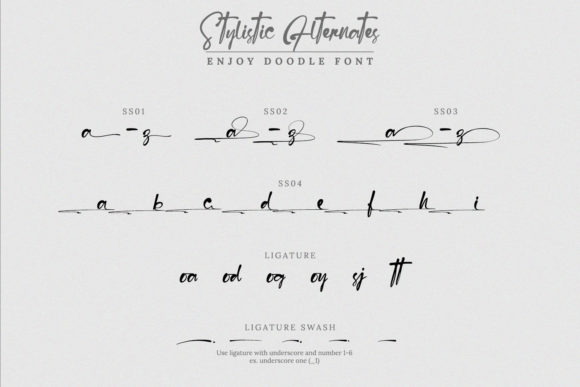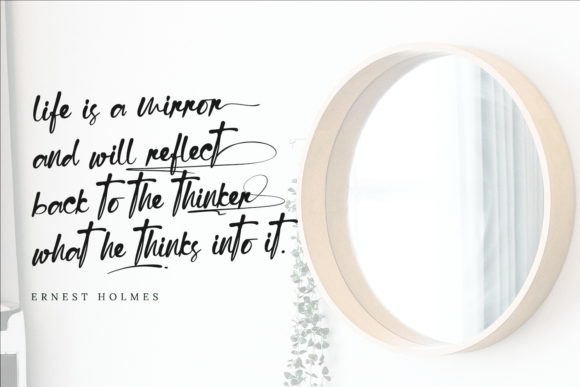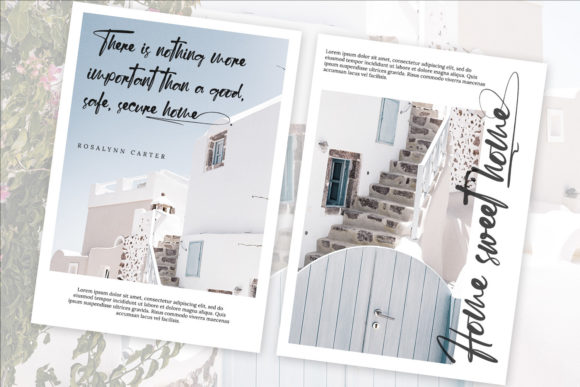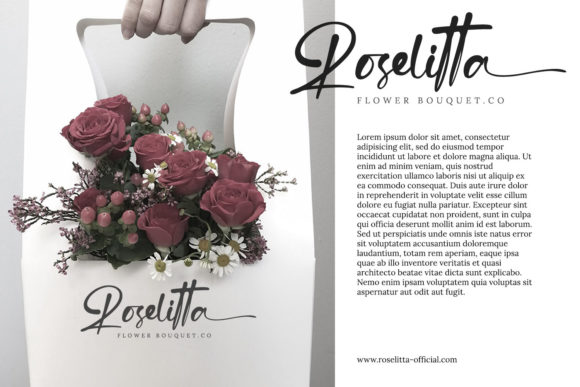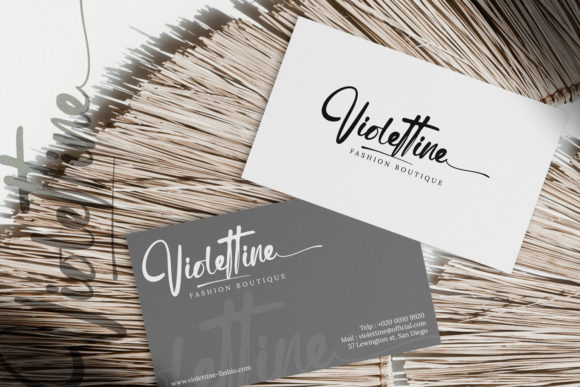
About Enjoy Doodle Font
Enjoy Doodle is a stylish and incredibly elegant script font. It looks stunning on wedding invitations, thank you cards, quotes, greeting cards, logos, business cards and more. This font is PUA encoded which means you can access all glyphs and swashes with ease!